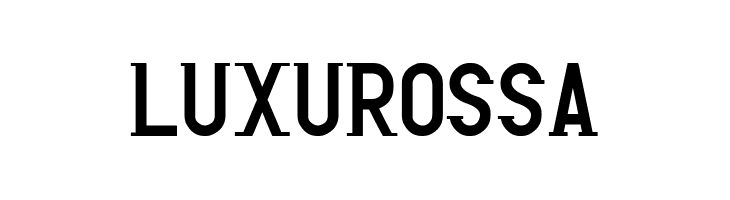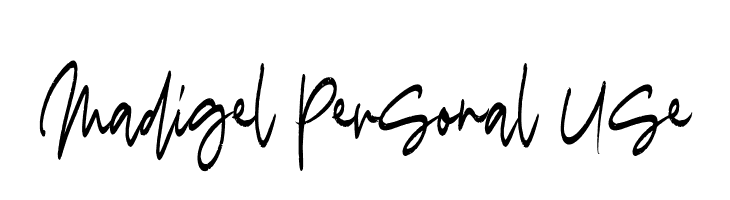
A refined and elegant typeface with high contrast and elongated letterforms.
A bold, playful font with rounded, bulbous letterforms and a whimsical style.
An elegant script font with flowing, cursive strokes and refined curves.
A playful, hand-drawn font with flowing, cursive-like strokes.
An ornate Blackletter font with intricate, bold letterforms and dramatic flourishes.
A bold, modern font with a strong, slightly condensed design.
A bold, dynamic font with sharp, angular strokes and a modern, edgy style.
A dynamic and elegant script font with fluid, cursive strokes.
A graceful and fluid script font with elegant, interconnected strokes.
A dynamic and expressive handwritten font with fluid, cursive strokes.